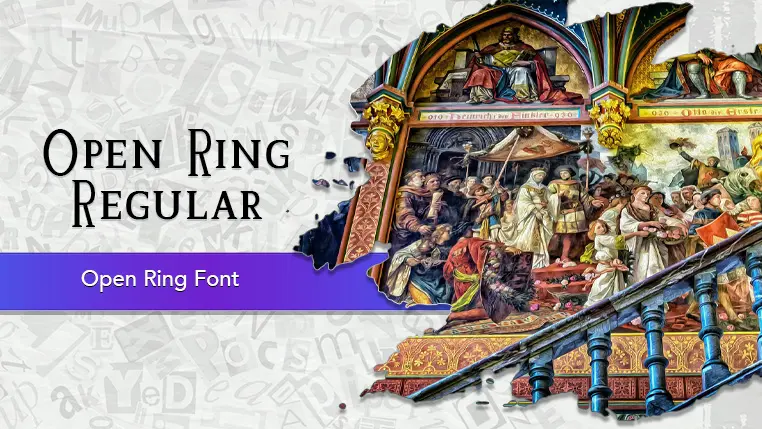
The Open Ring font family may be ideal for you if you enjoy working on an artistic design project. The lively, expressive look of this typeface, which was created by MrTophat, makes it ideal for Logos and Branding. It would be perfect for headlines in posters, websites, and magazines where you want to grab attention with a unique and memorable style. The geometric and clean lines of a "ring" font could be used for headers or specific UI elements in apps that have a futuristic or minimalist aesthetic. It would be a great fit for any project that needs a font with a modern, technical, or even playful vibe, such as album covers, event posters, or digital art. and other light-hearted visual projects.
Regular are the one primary font styles of the Open Ring font family. You may build dynamic, visually appealing text layouts with the distinct flair that each style offers. With crisp, readable lines and a relaxed tone.